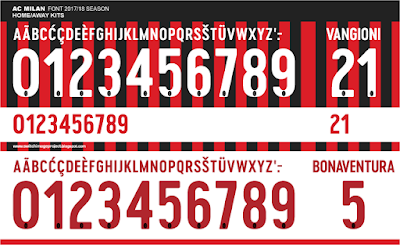
Back to worked again after almost a week with the first 2017-18 font collection from AC Milan home kits. The new AC Milan home kits reverts to a more traditional look, inspired by the shirts worn from the late 1980s until the end of the past century.
AC Milan also introduced an all-new font for the 2017-18 season. The new Milan font is white additional with a monochromatic Milan’s crest on the bottom, just as last season.